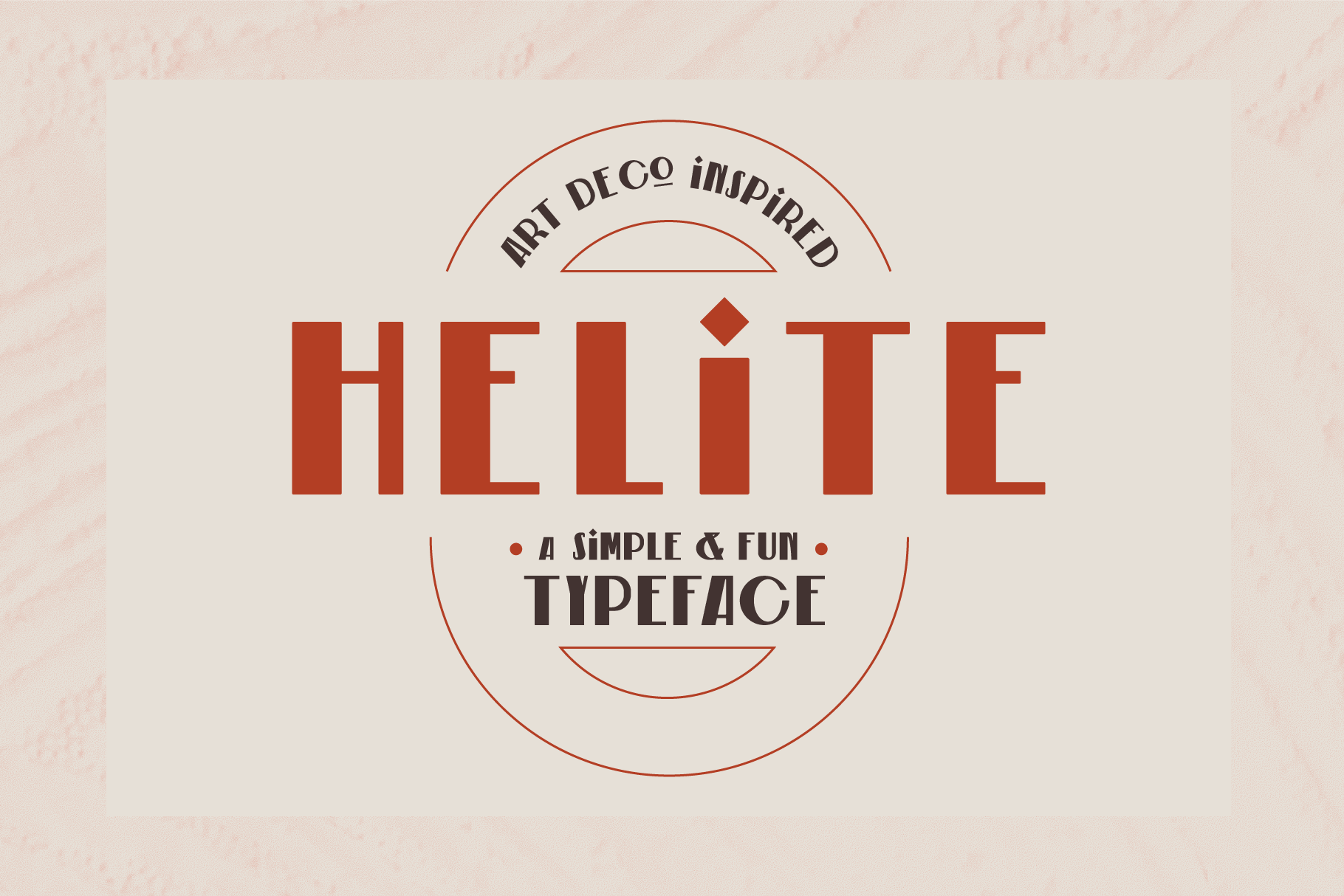
Helite - Typeface
Helite is an elegant and display font!
The font includes special uppercase letters, numbers and beautiful ligatures
The font is great for logo design, editorial print, packaging or invitation cards.